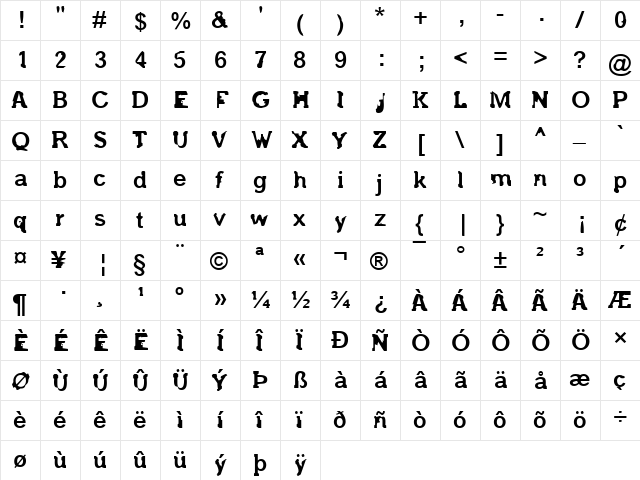
after 45' Regular
Design Context for after 45' Typeface
after 45' is a composed and adaptable typeface that performs quietly and consistently across a wide range of design contexts.